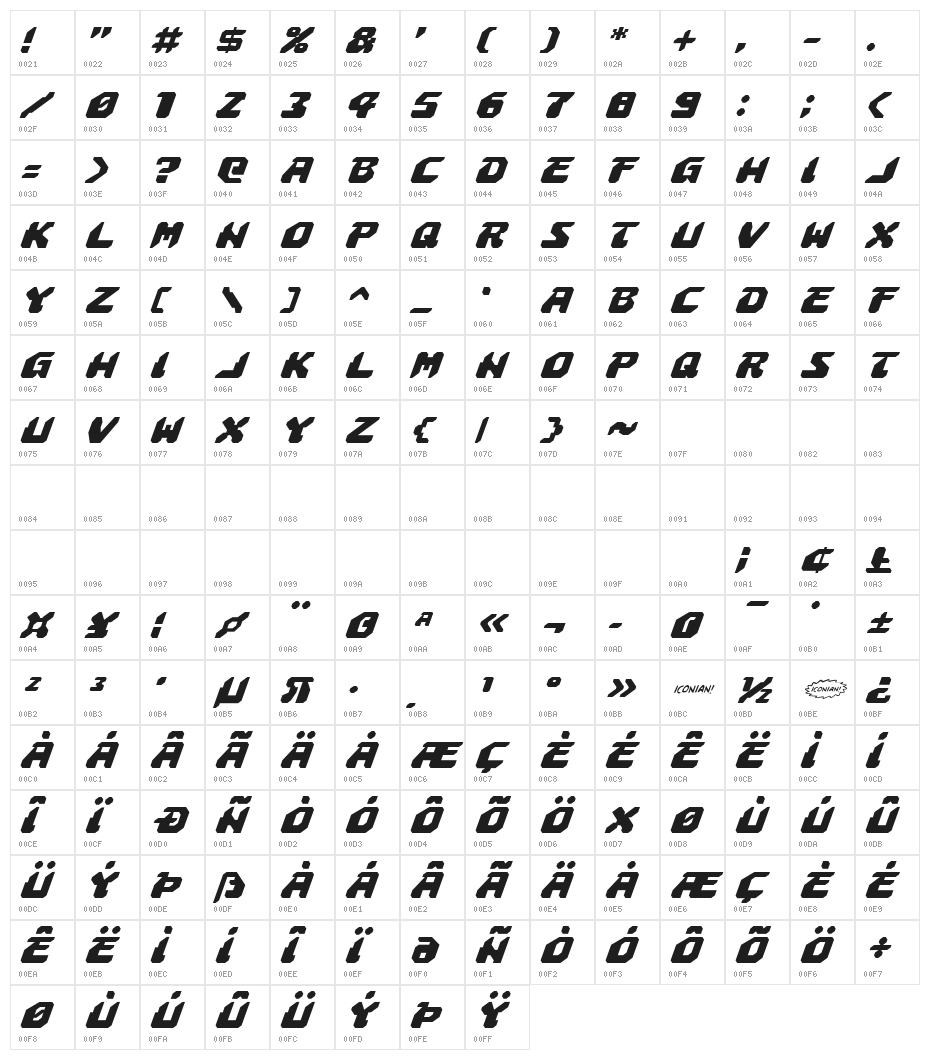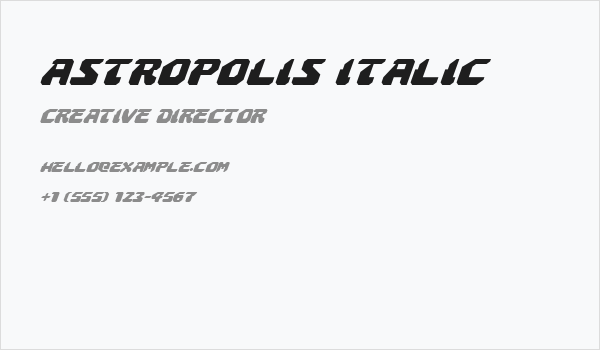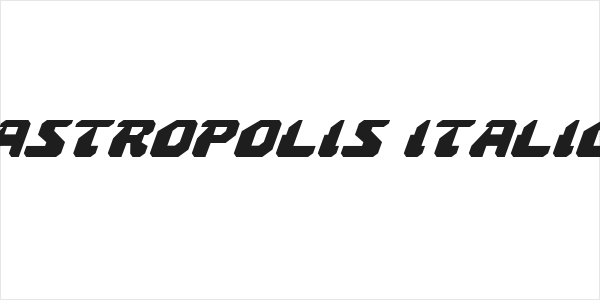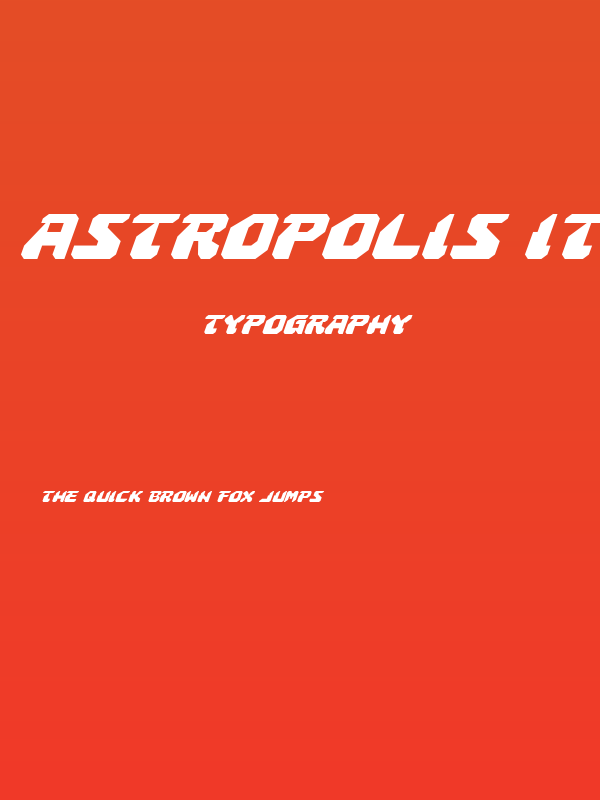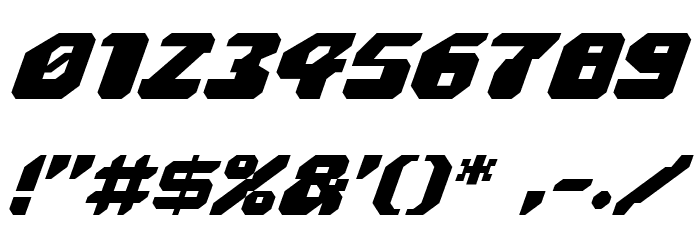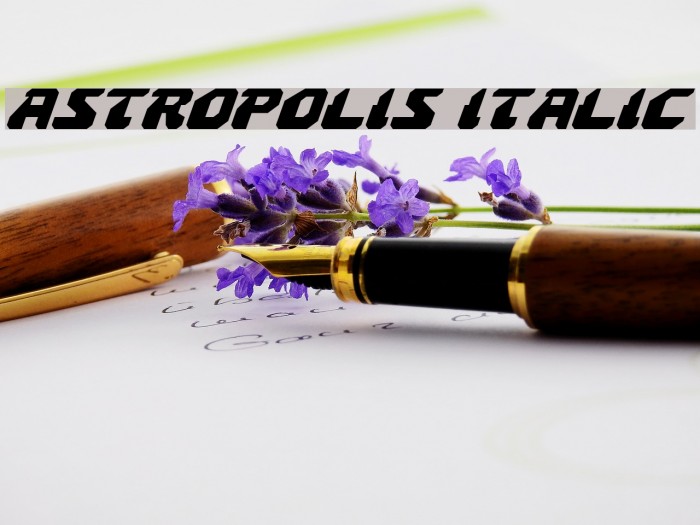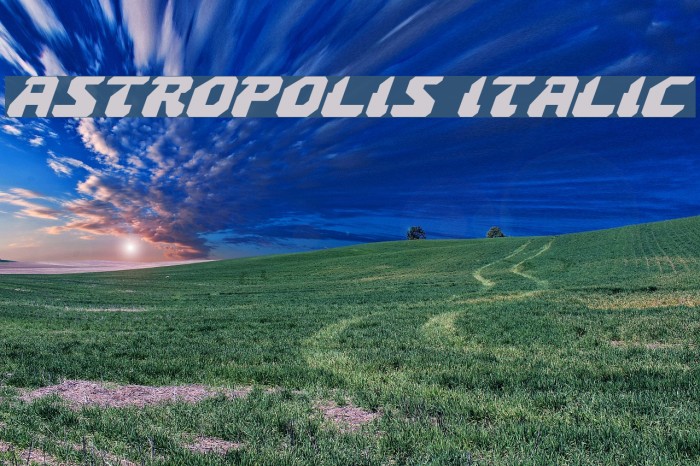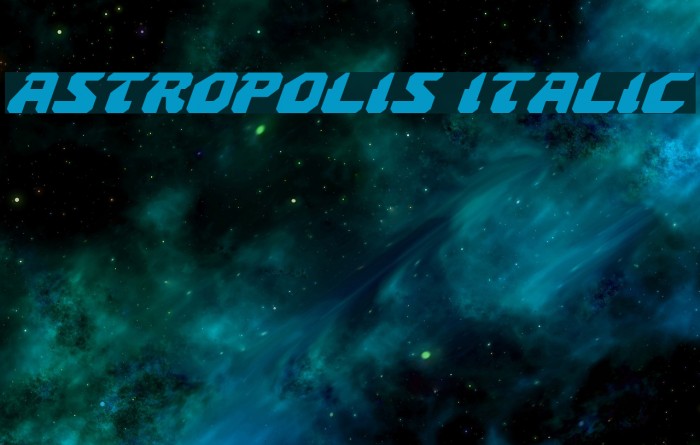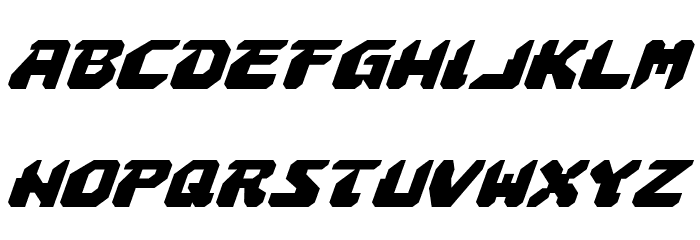
Astropolis Italic Font
Astropolis Italic Description
This font features a bold, italicized style with a futuristic and dynamic appearance. The characters are angular and geometric, with sharp edges and a strong forward slant, giving a sense of motion and speed. The uppercase and lowercase letters maintain a consistent style, with the lowercase being slightly smaller but equally bold. The numbers and special characters are designed to match the overall aesthetic, ensuring a cohesive look across all text elements. The font's design is ideal for projects that require a modern and edgy feel, making it suitable for technology-related themes or creative branding.
| Proposed Projects | Ideal for technology branding, sci-fi themed designs, video game titles, and dynamic posters. |